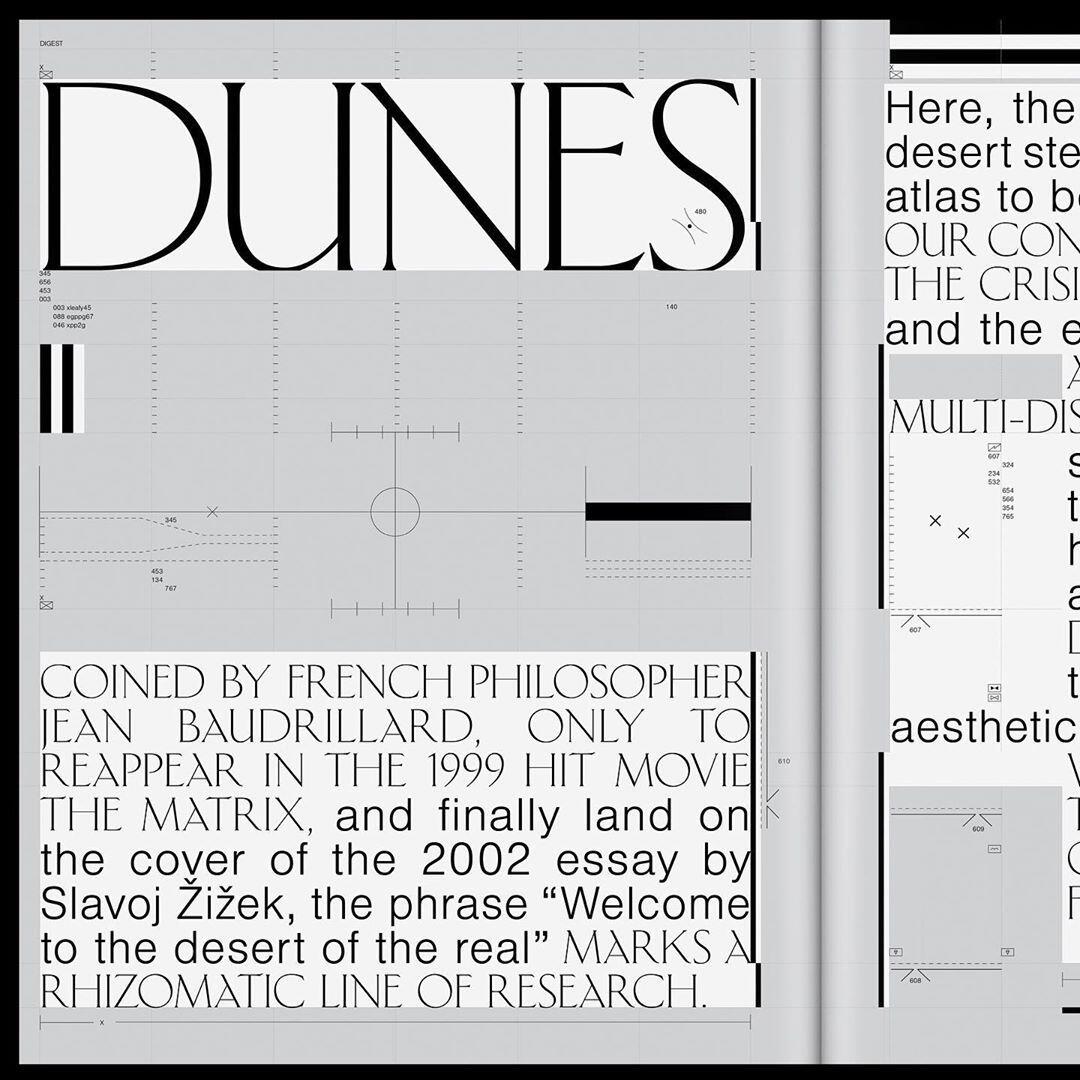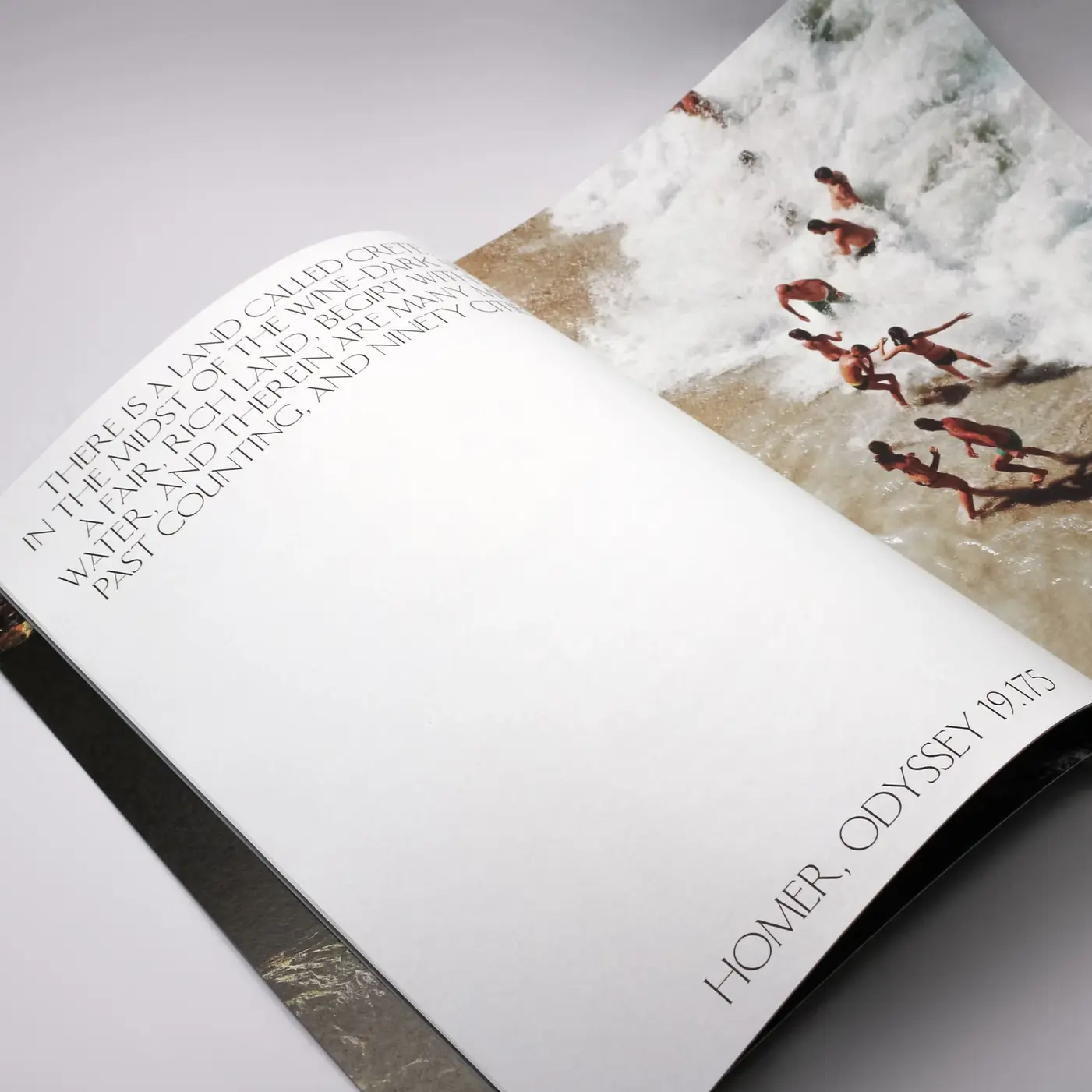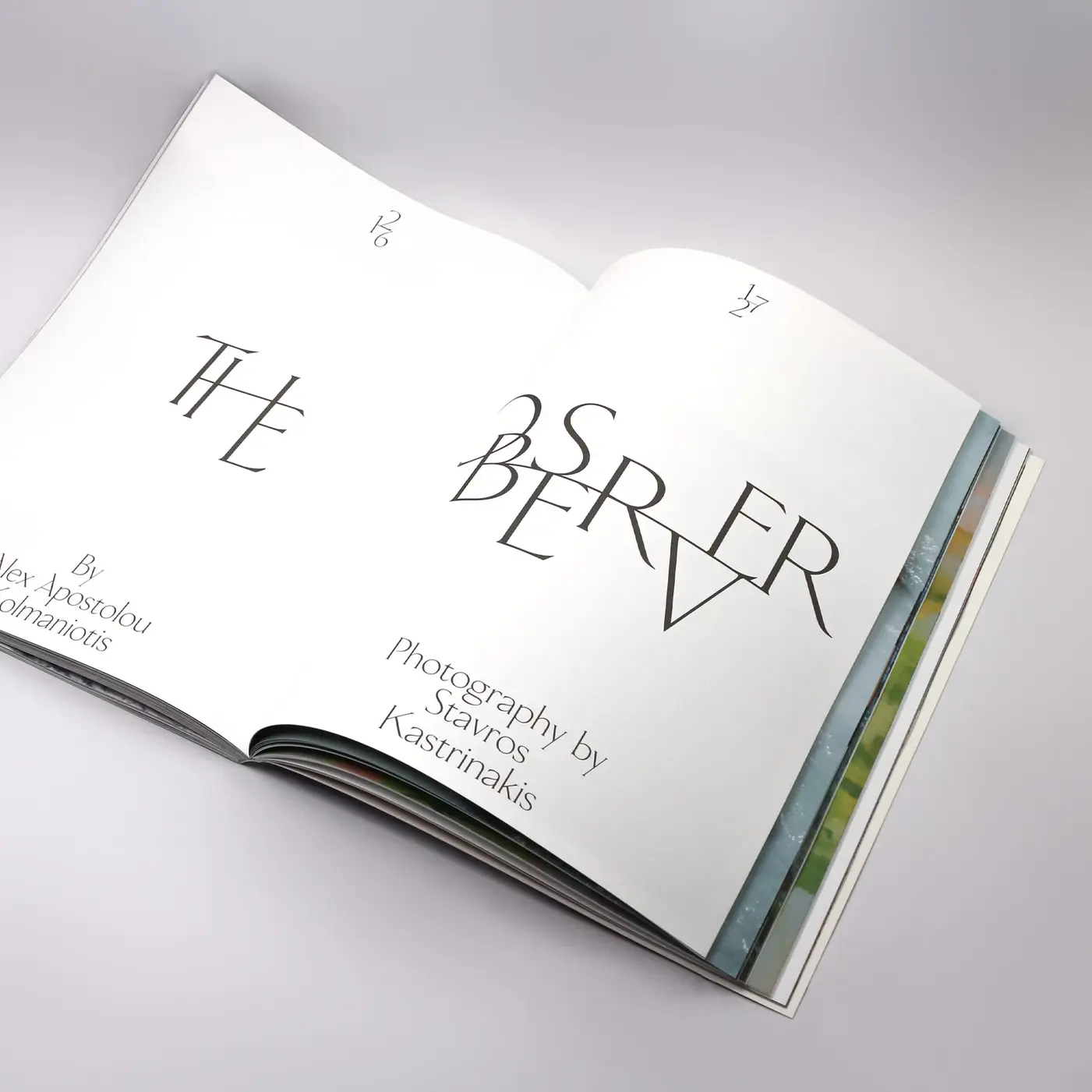
Looking for the typeface used in NOMAS Issue 16 – Crete
I’m trying to identify the primary display typeface used in NOMAS Magazine Issue 16 – Crete.
It has the heavy, historical presence of an Antiqua Roman, but with a very distinct modern edge.
I’ve also spotted what appears to be the same typeface in Kaleidoscope Magazine Issue 34. Given the overlapping collaborators between these titles (specifically Bureau Borsche), I suspect it might be a custom?
Does anyone know if this is a commercially available font or a bespoke commission? Thanks in advance!